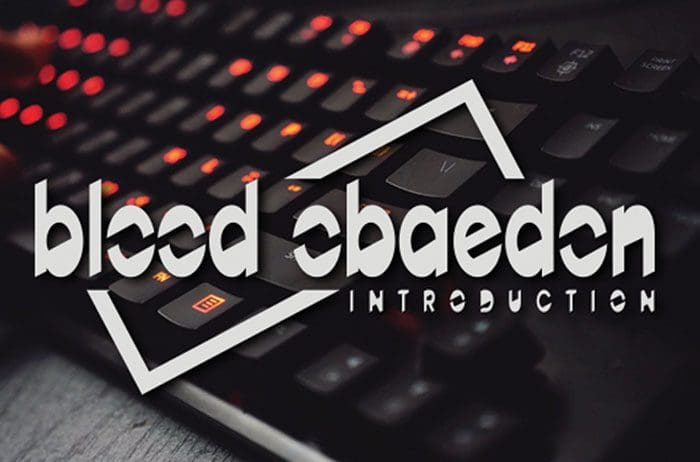
Blood Obaedon Serif Font
Blood Obaedon serif font is a modern and casual with an incredibly unique feel. Use this amazing and authentic font to bring any DIY project to life! Designed this font by Andika Studio. You can also search more freeĀ Serif Fonts.